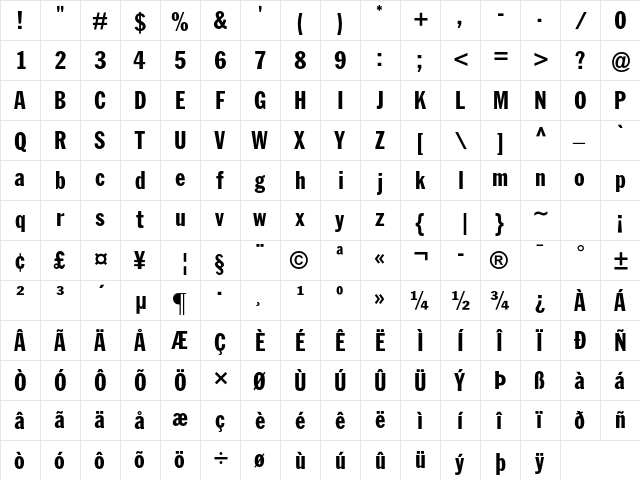
Franklin Gothic MT Std Regular
Design Context for Franklin Gothic MT Std Typeface
Franklin Gothic MT Std has the quiet confidence of well-executed sans-serif typography: versatile, unobtrusive, and dependable at any size.
Font Pairing: Works well alongside a characterful serif or display font that can carry the expressive load while Franklin Gothic MT Std handles the functional copy.
Pro Tip: Use Franklin Gothic MT Std for UI labels, navigation, and short-form body copy where clean legibility is the priority.